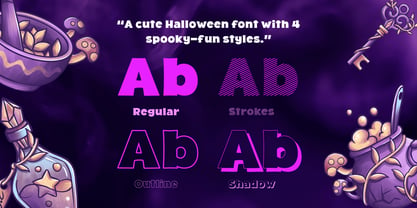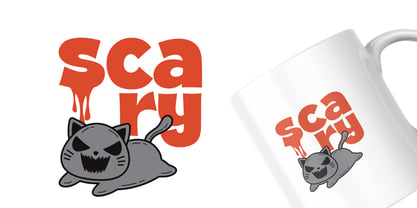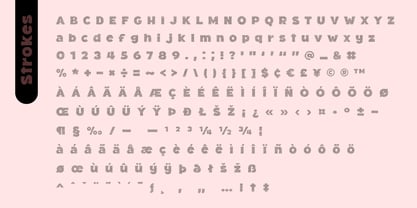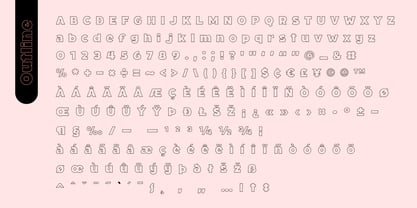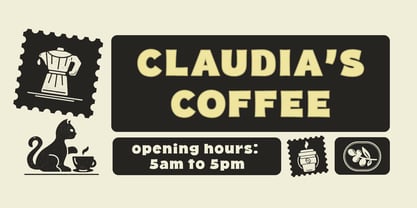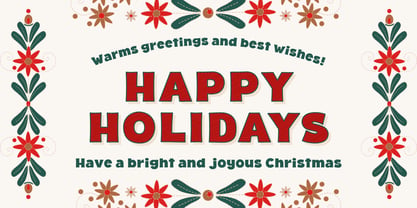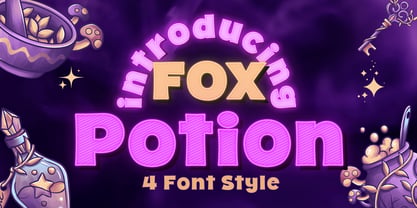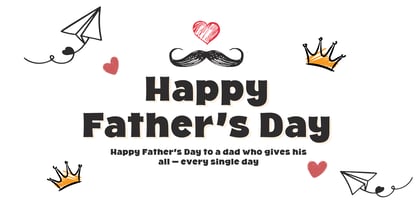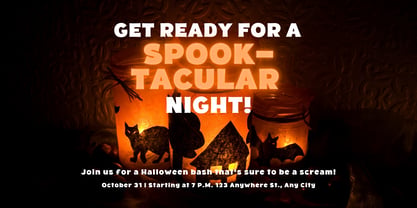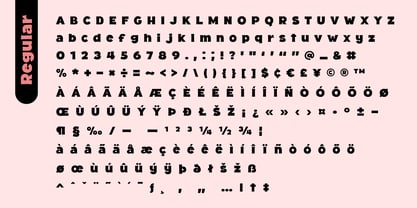
Fox Potion
The Fox Potion Font Family was designed by Rattana Rattanawan and published by Fox7. Fox Potion contains 4 styles and family package options. More about this family
Fox Potion is a bold and playful display font inspired by the whimsical world of potions, spells, and fantasy. This family features 4 charming font styles: Regular, Outline, Shadow, and Layered, giving you flexible options to create eye-catching titles, game interfaces, kids’ books, or magical branding projects. Its rounded letterforms and fun, cartoon-inspired shapes bring an enchanting and friendly feel to your design work. Perfect for Halloween themes, potion labels, children’s illustrations, fantasy games, and any project where you want to add a sprinkle of magic!